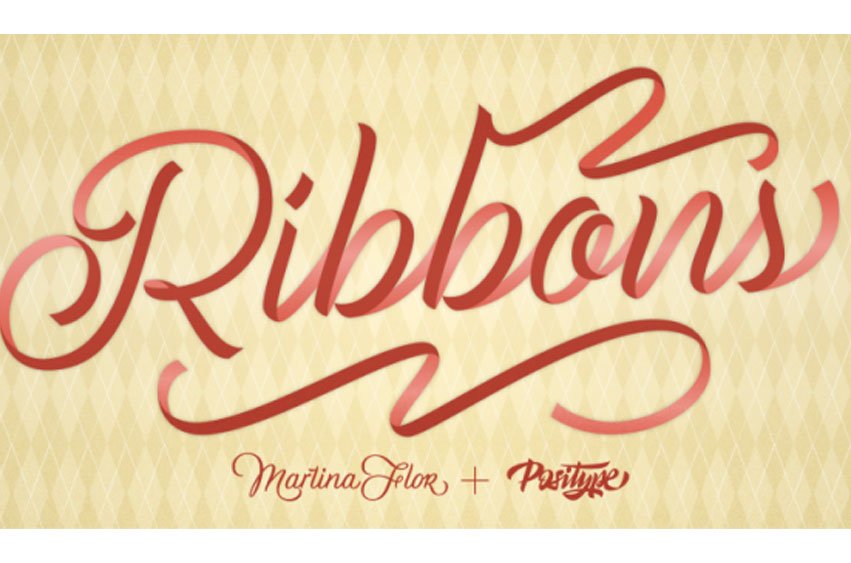
Ribbons Font Holy grail of complex-lettering-turned typeface or an elusive Loch Ness monster that is often teased, possibly seen in the wild, but never confirmed?
From the amazing lettering artist and author Martina Flor and masterful type designer Neil Summerour, comes the aptly named Ribbons. Ribbons is a sincere and well-conceived approach to providing a reliable solution to ribbon and ribbon-styled type for creative professionals when a lettering artist just isn’t available.